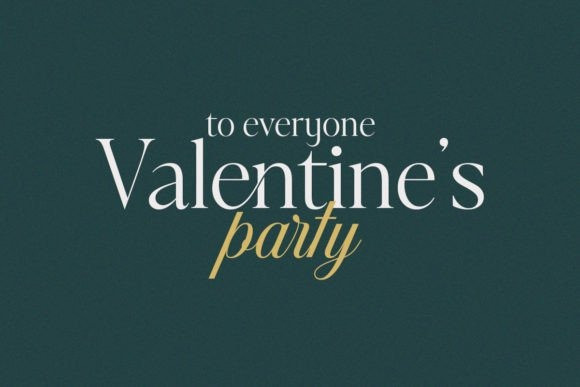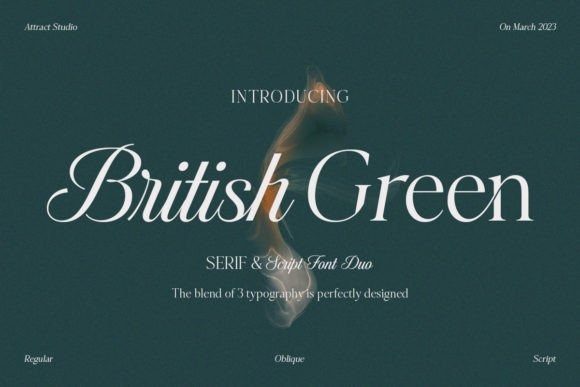
British Green Font
British Green Font is a font duo consisting of a script and a serif that combine attractively when placed side by side. British Green is a versatile set of fonts that can be used and suited across a variety of design projects.